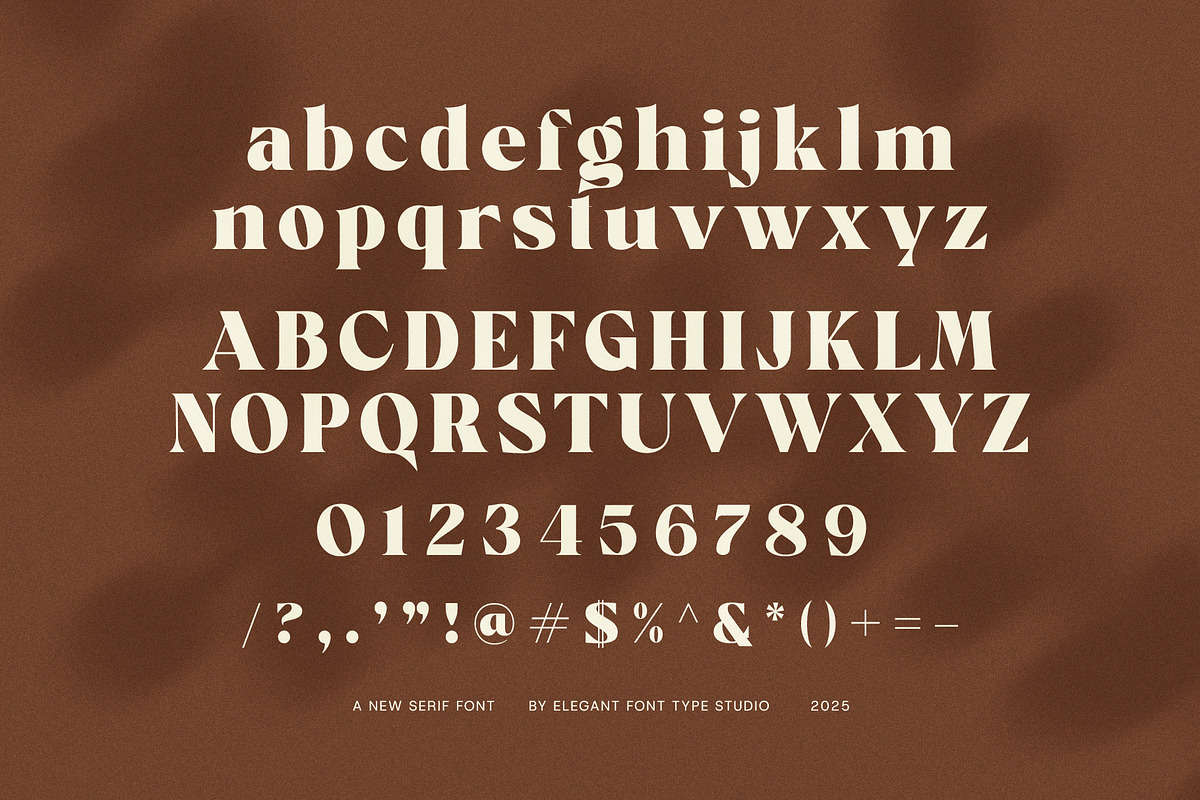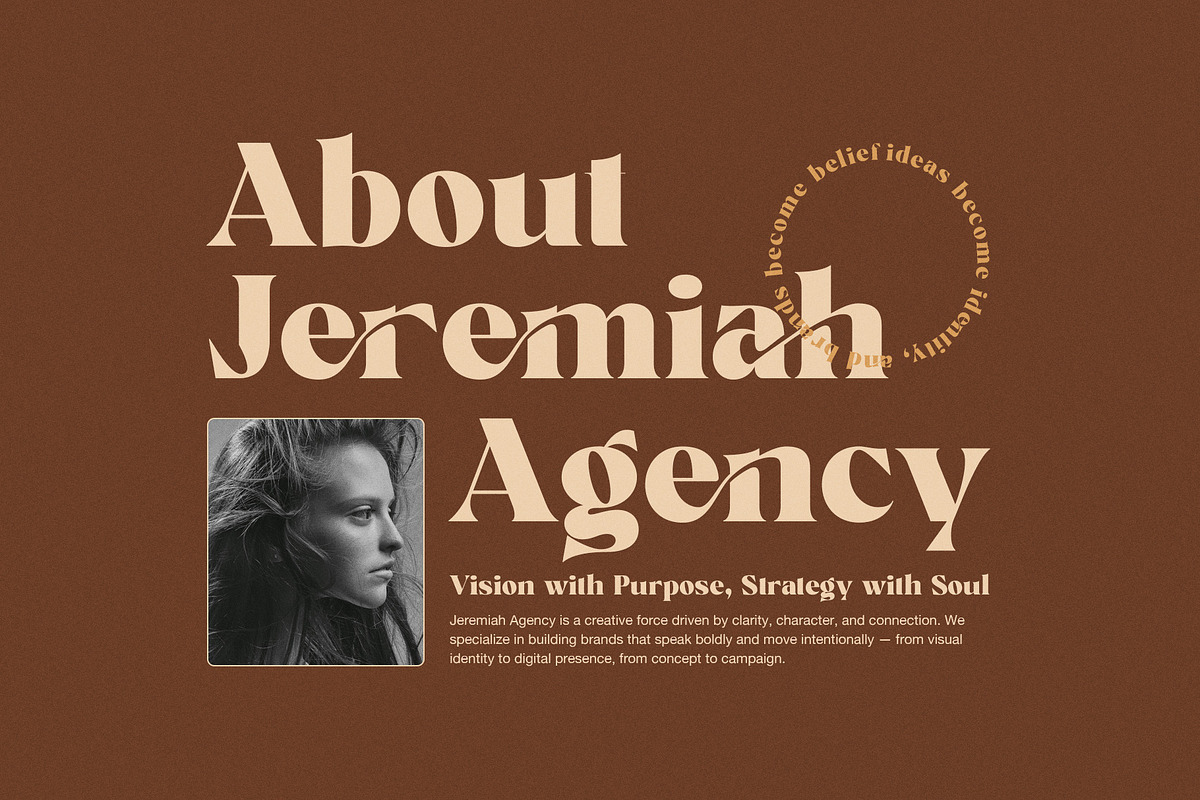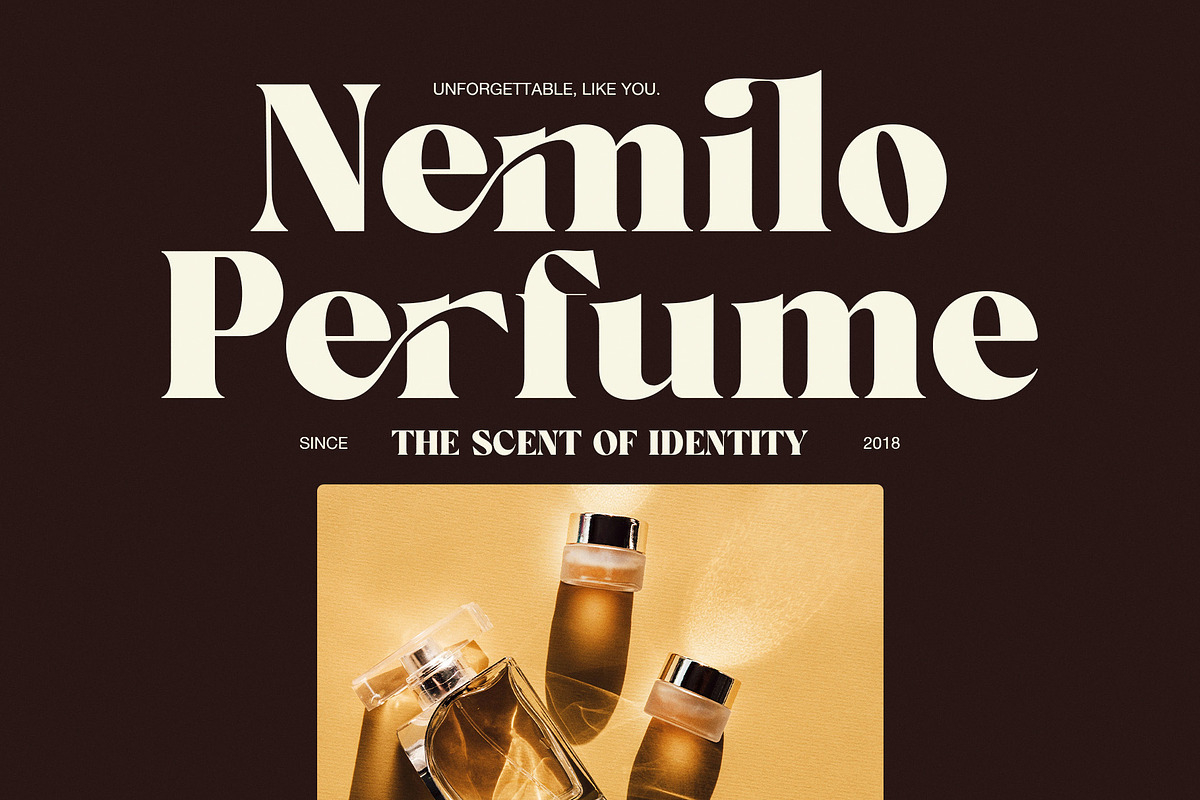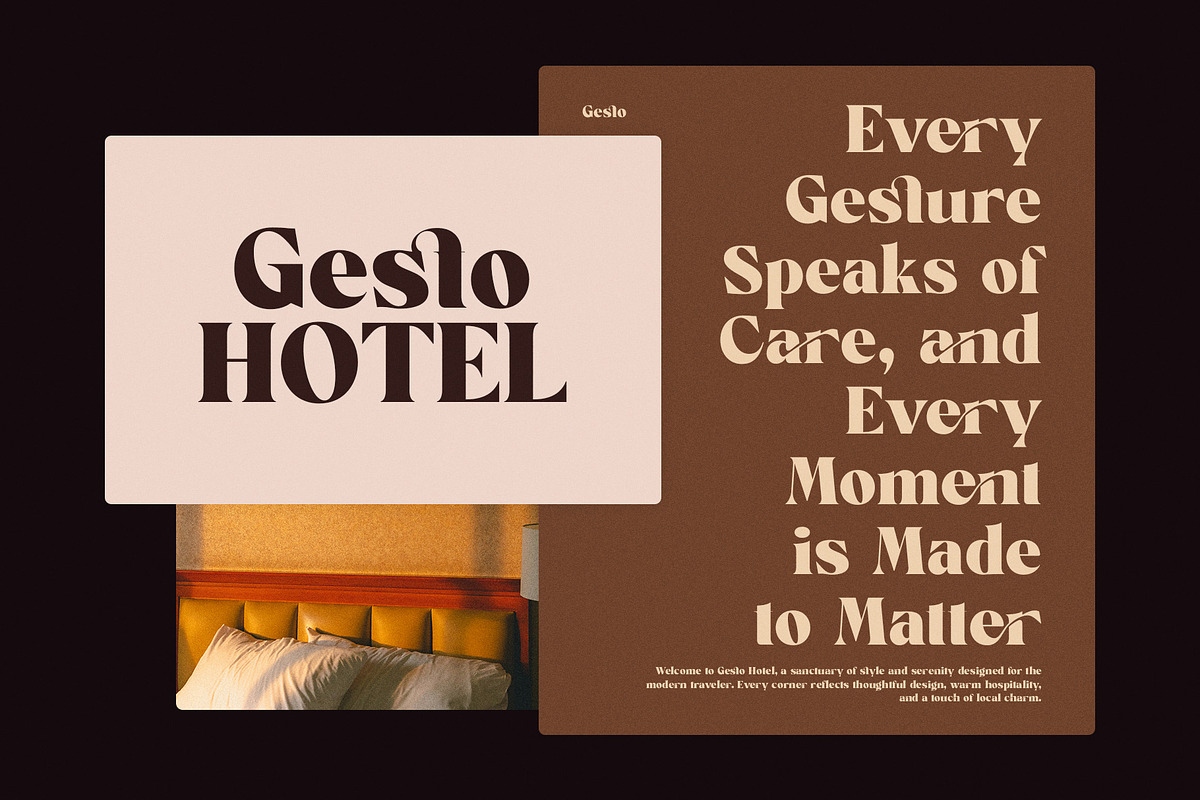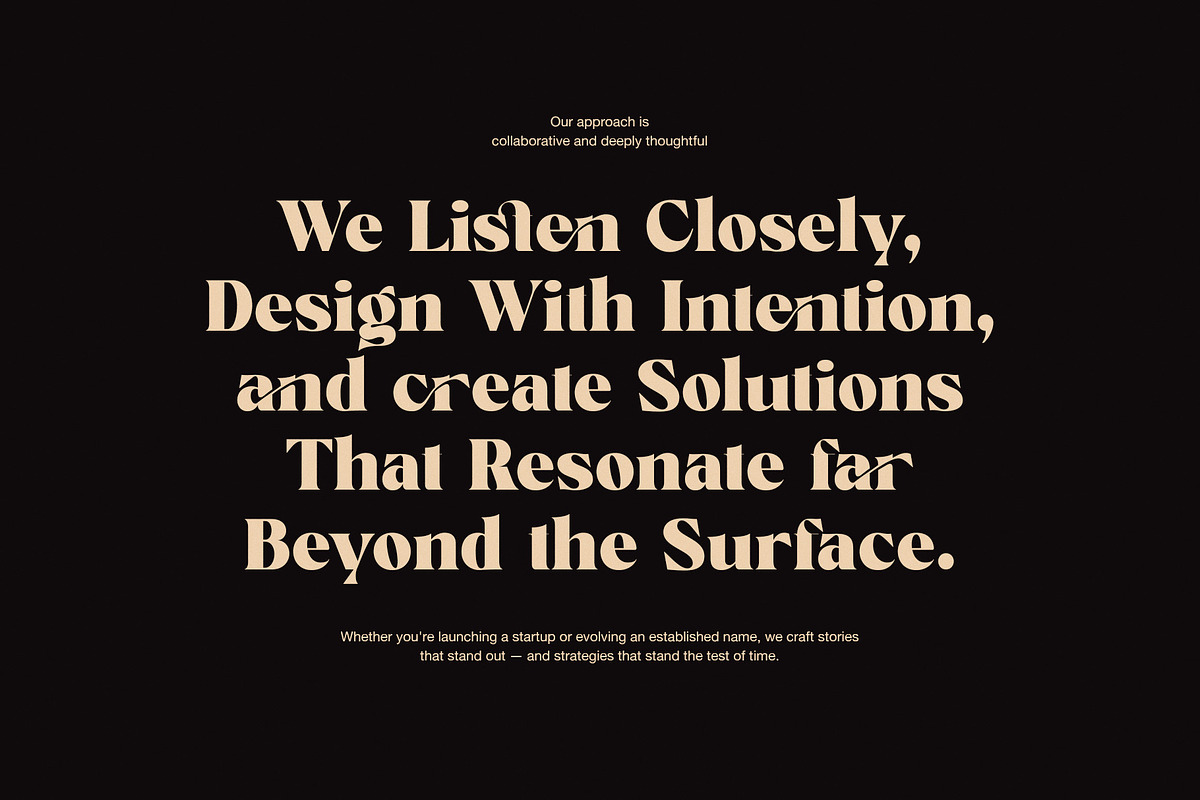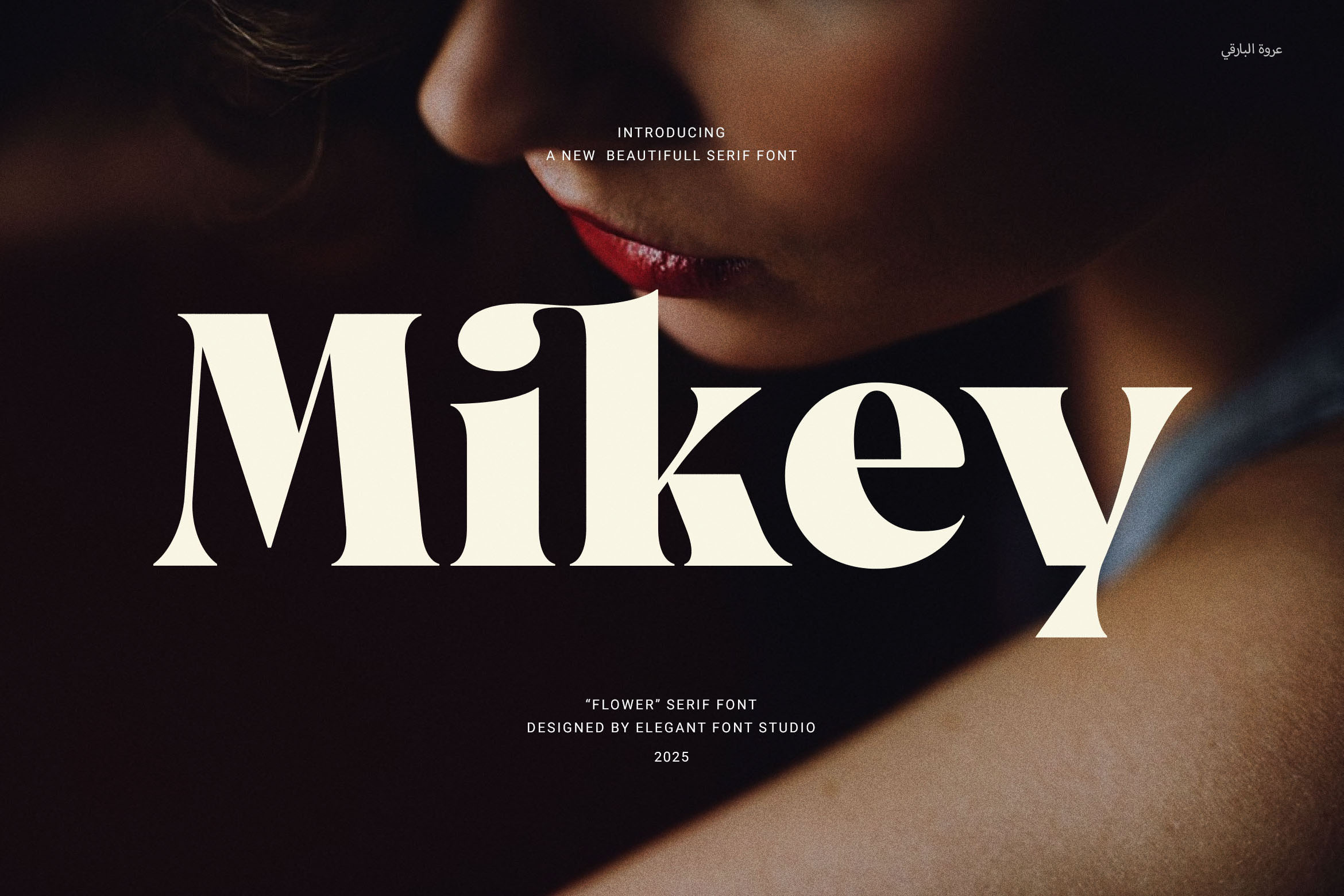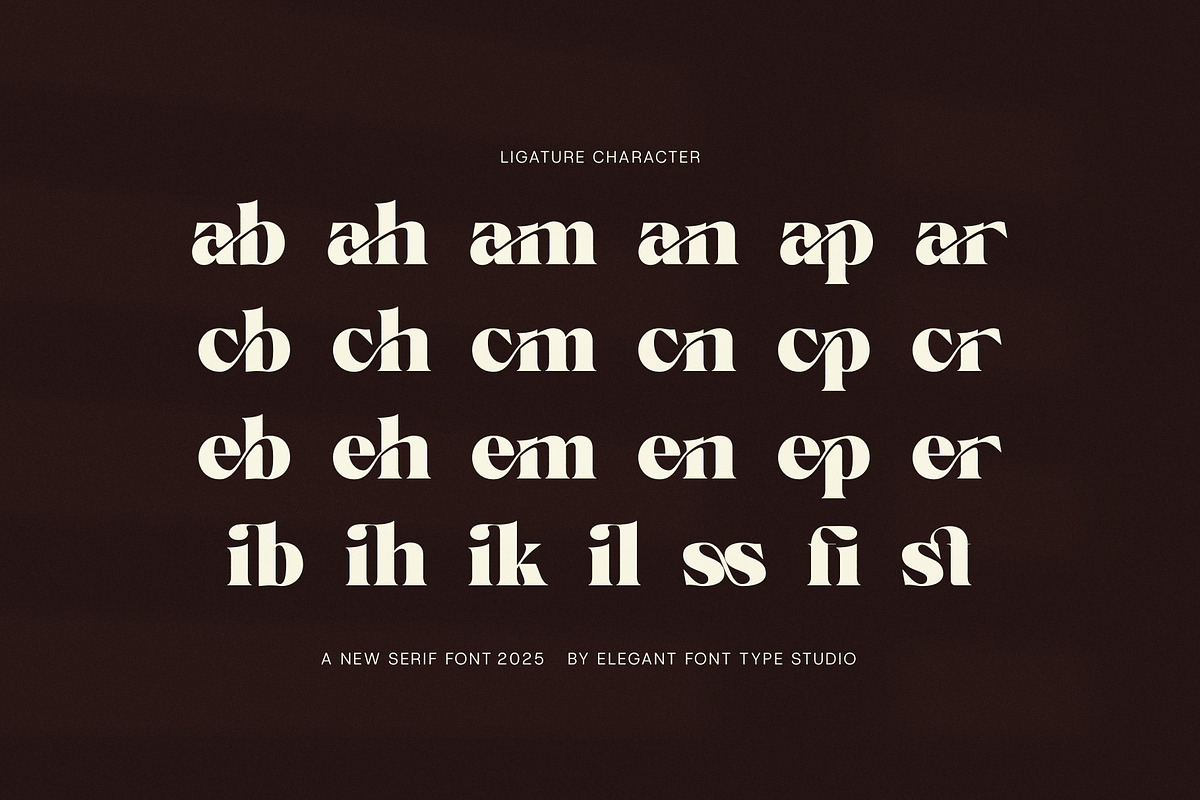
Mikey Elegant Serif Font
Mikey Elegant Serif Font is a modern serif typeface designed to add class and clarity to your visual content. With smooth curves and perfectly balanced letterforms, Mikey delivers both elegance and readability—making it ideal for any creative or professional project.
This font was created with branding in mind. Its proportional structure ensures consistency across layouts, while the included functional ligatures give your text a more dynamic and stylish appearance. These subtle design enhancements help elevate your message and set your work apart.
Whether you're designing for logos, websites, packaging, editorials, or advertisements, Mikey adapts seamlessly to both digital and print formats. It also fits beautifully in projects like:
Boutique branding
Food product packaging
Fashion and beauty labels
Magazines and layout design
Mikey stands out because it blends timeless charm with a clean, modern feel. As a result, it’s perfect for designers who need a flexible serif font that performs across industries.
If you're looking for a serif font that is not only elegant but also versatile, Mikey is the ideal choice. With its refined features, it gives your designs a premium finish that leaves a lasting impression.
Bring your creative ideas to life with Mikey Elegant Serif Font—because strong branding starts with great typography.